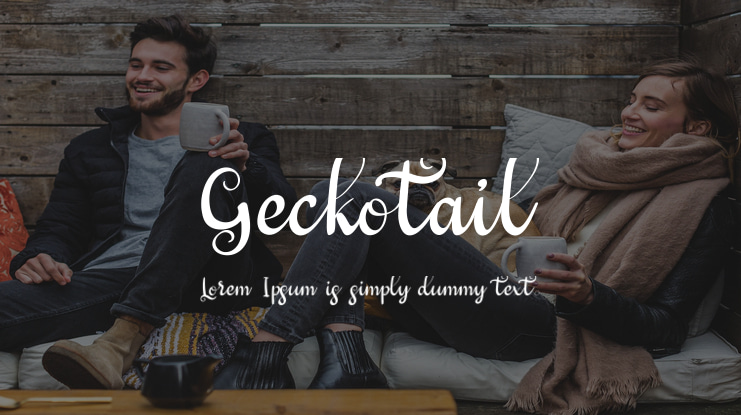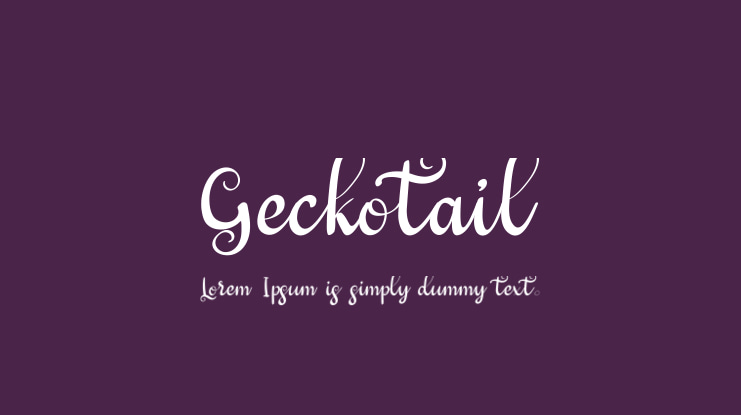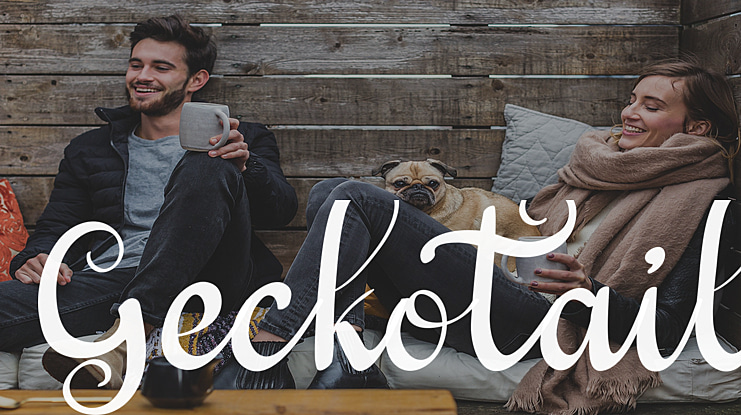
Geckotail Font
Geckotail Script Font is a pretty, ornate calligraphy font. If you type a few symbols in this font, you will find many geckos with spiral tails.
Enjoy this font with your beautiful works. It looks stunning on wedding invitations, thank you cards, quotes, greeting cards, logos, business cards and every other design which needs a handwritten touch.
Geckotail Calligraphy Font is PUA encoded which means you can access all of the glyphs and swashes with ease!
Geckotail font preview